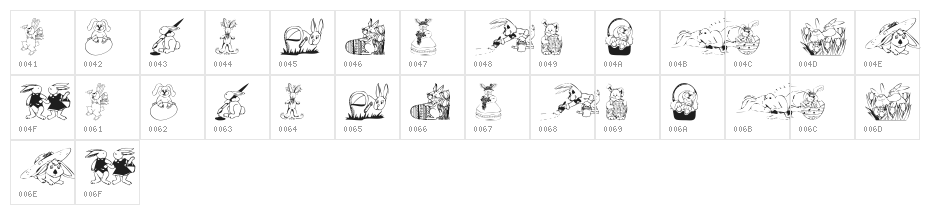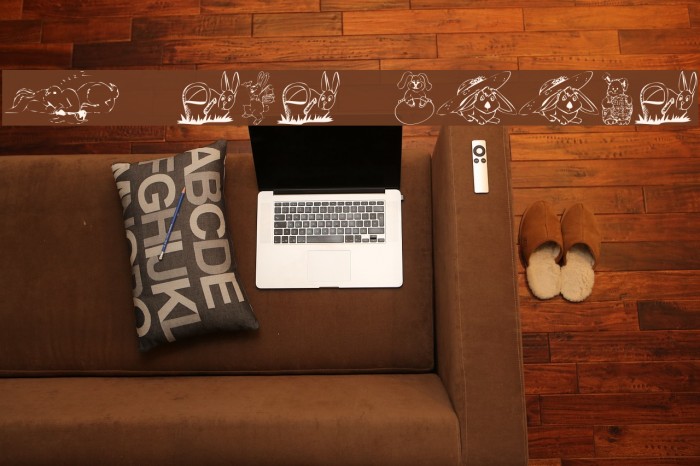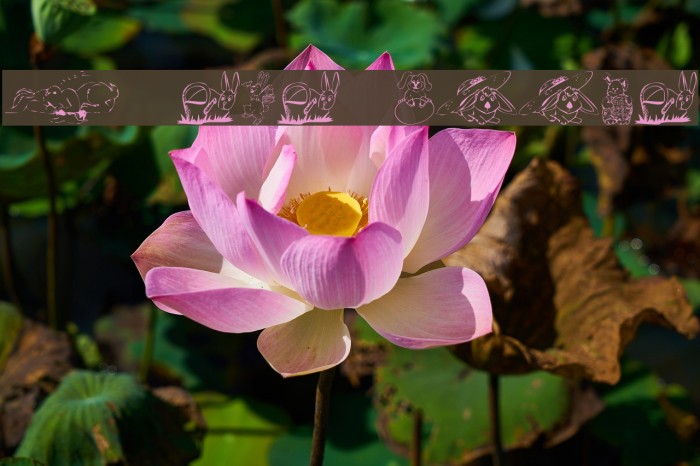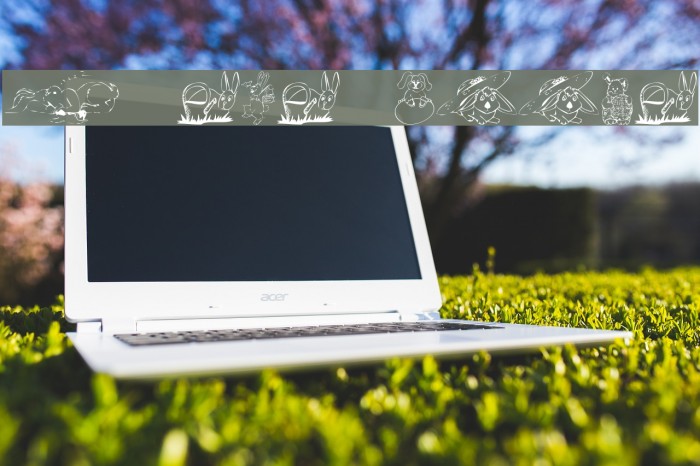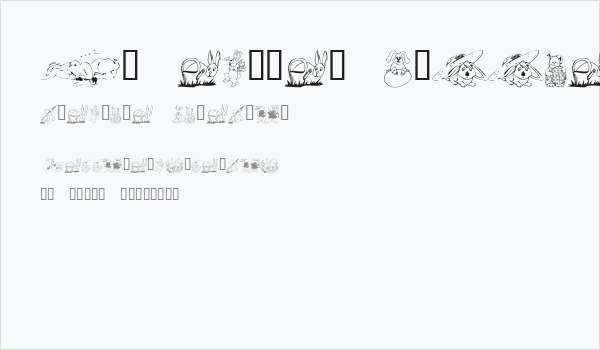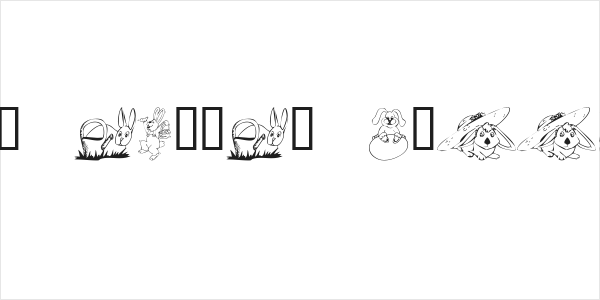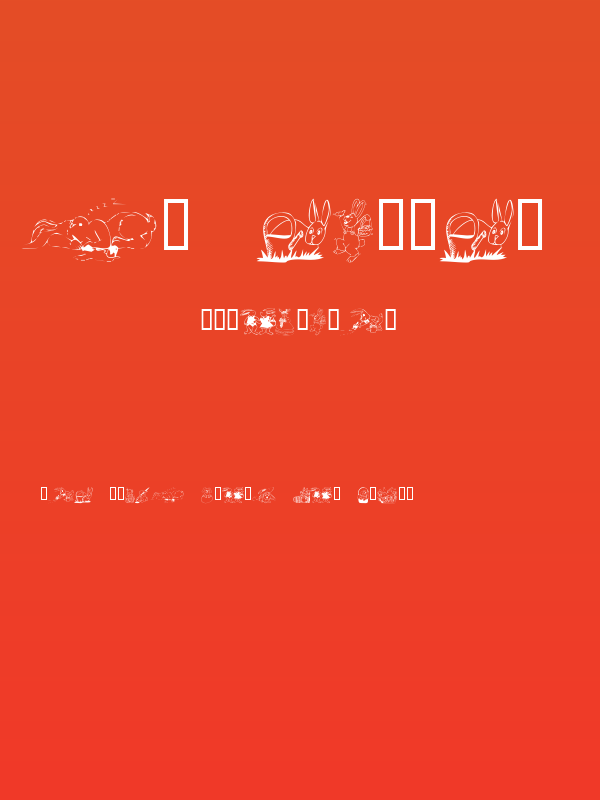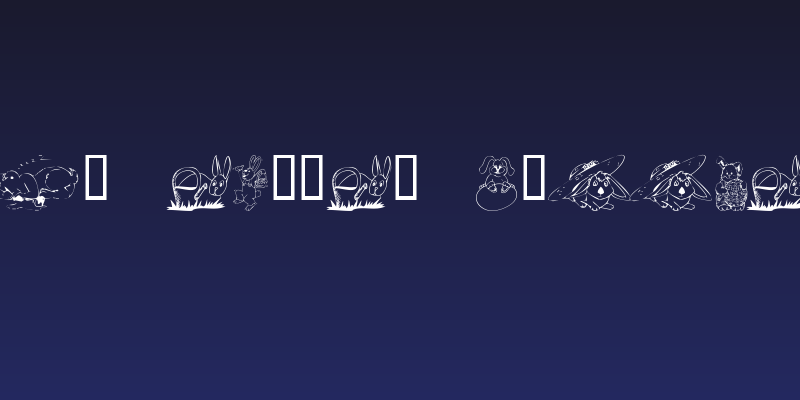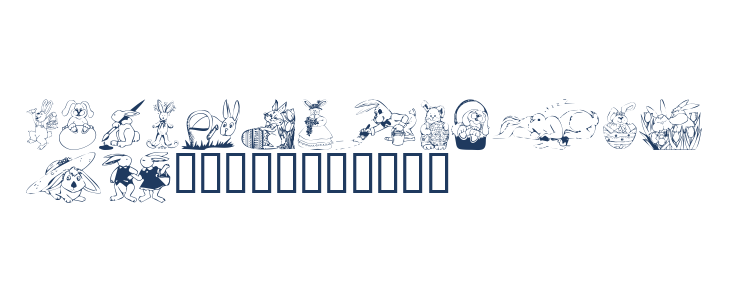
KR Easter Bunnies Font
KR Easter Bunnies Description
This decorative font features whimsical Easter-themed illustrations, including playful bunnies, eggs, and springtime motifs. Each character is represented by a unique and charming illustration, making it ideal for festive and lighthearted designs. The style is playful and captures the essence of Easter with its delightful and intricate drawings. The font is not designed for traditional text but rather for decorative purposes, adding a touch of fun and creativity to any project.
Use CaseDecorative elements, festive designs, holiday crafts.
Proposed ProjectsIdeal for Easter cards, children's books, festive banners, and holiday-themed crafts.